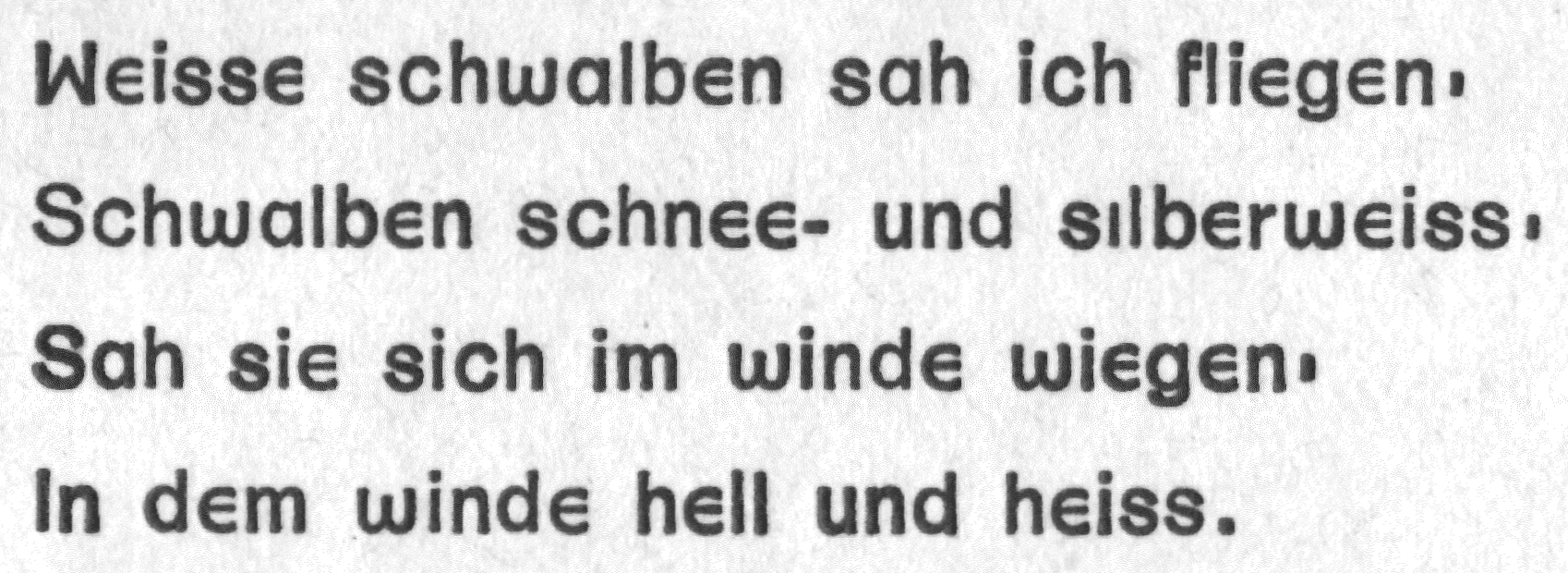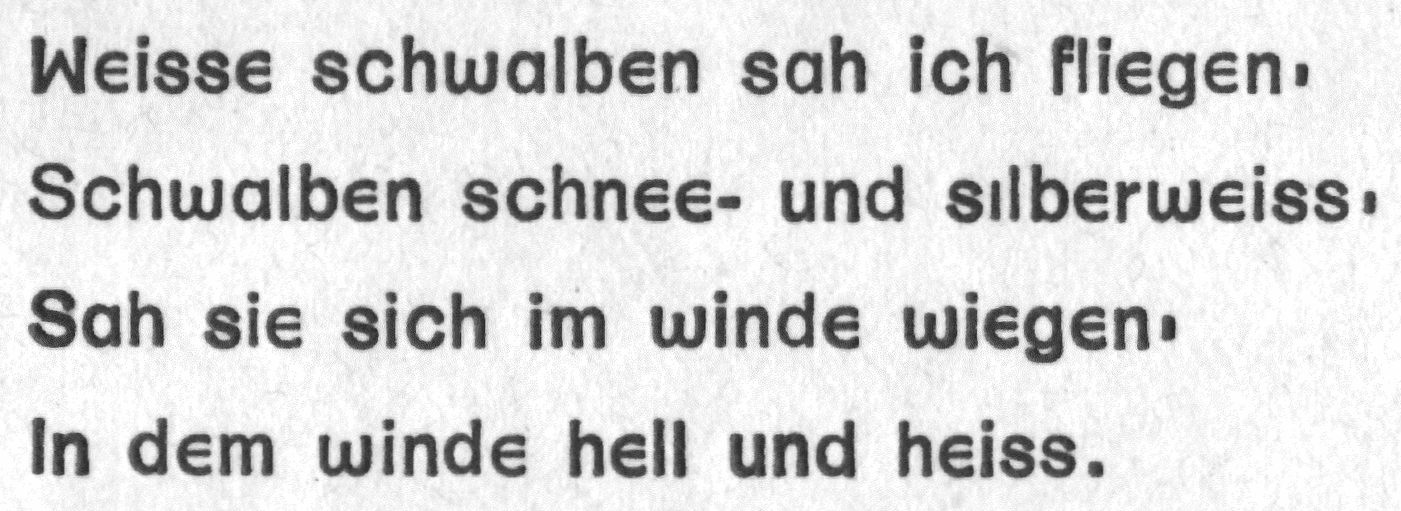
Can you suggest a body text font that has a lowercase 'e' which looks like c with a bar in the middle?
Can you suggest a body text font that has a lowercase 'e' which looks like c with a bar in the middle so that the e is vertically mirrored?
Attached is an image that has the kind of 'e' I mean. It's from https://en.wikipedia.org/wiki/Akzidenz-Grotesk.
That particular font has been recreated at http://www.textkritik.de/technik/stefan_george_schrift_engl.htm but it's too extravagant otherwise (the capitals often look weird and t is replaced with greek tau), I'm looking for something otherwise fairly normal.